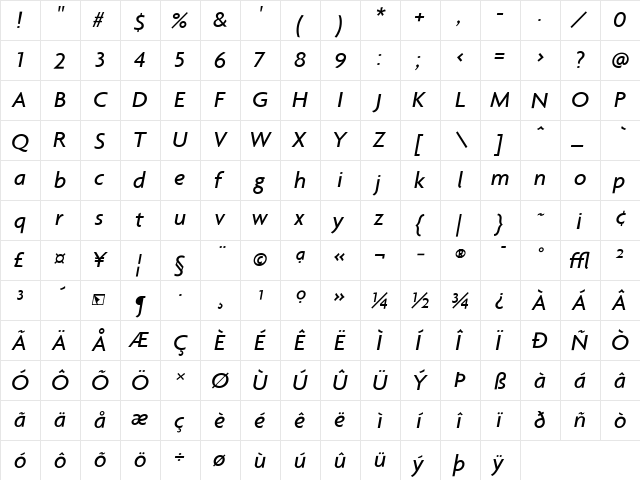
Agenda Italic
Design Context for Agenda Typeface
Agenda takes a measured approach to typography — its balanced proportions and neutral character make it a reliable workhorse for both digital and print work. The slanted form adds forward momentum and visual energy.
Pro Tip: Use Agenda for emphasis, pull quotes, and subheadings where its slanted energy can add rhythm to the layout.